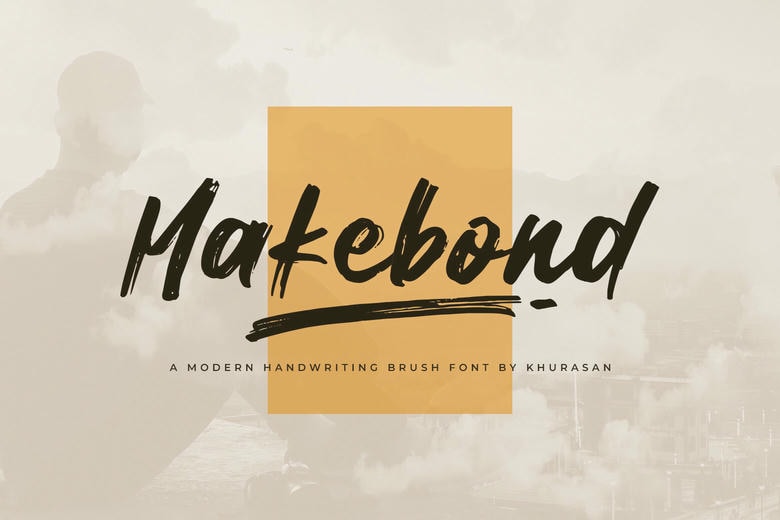
Makebond Font
Makebond is a modern brush font perfect for posters, logos, magazines, book covers, banners, and many more! Get this quirky display font, and use it to create lovely designs! It can easily be matched to an incredibly large set of projects, so add it to your creative ideas and notice how it makes them stand out!
Makebond Brush Script Font